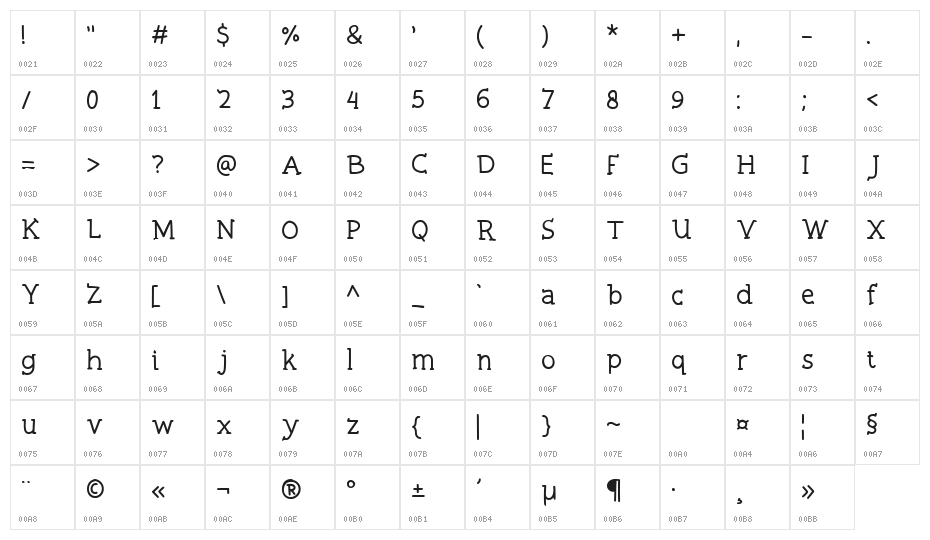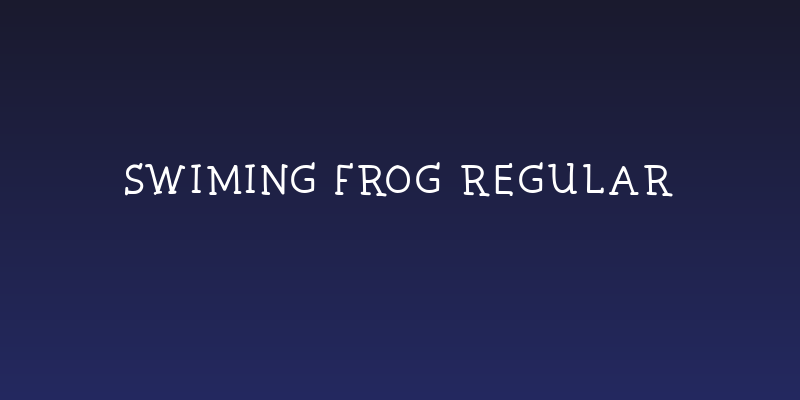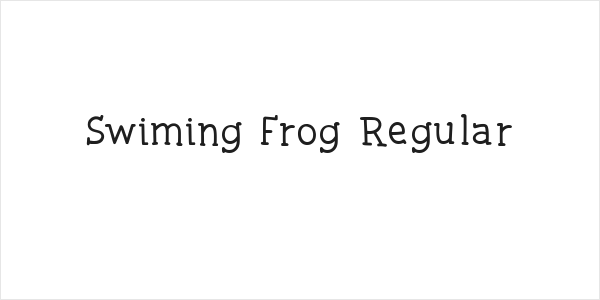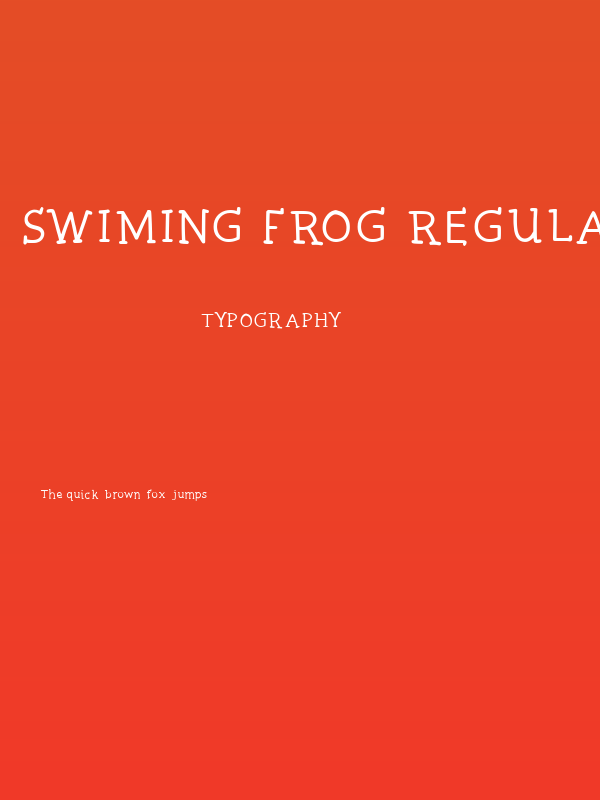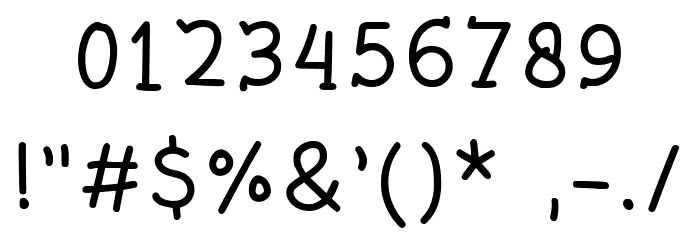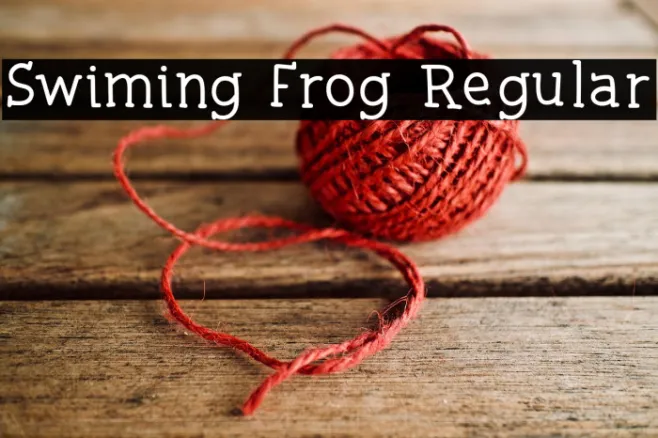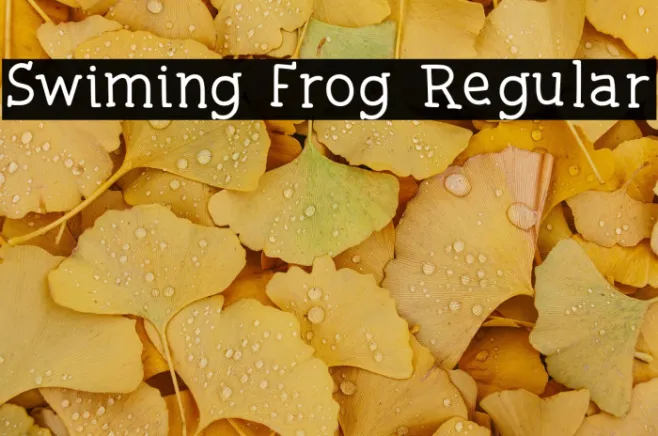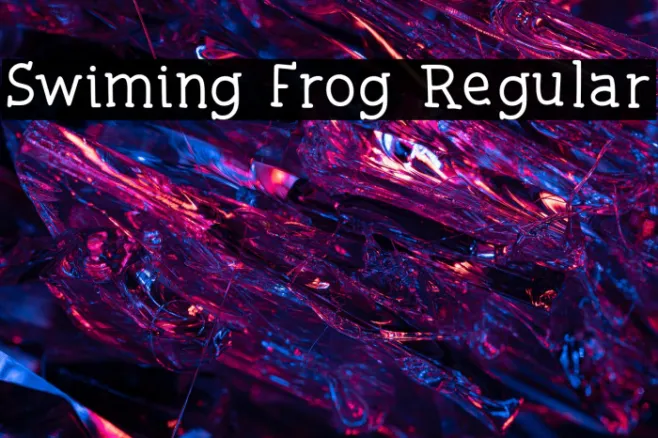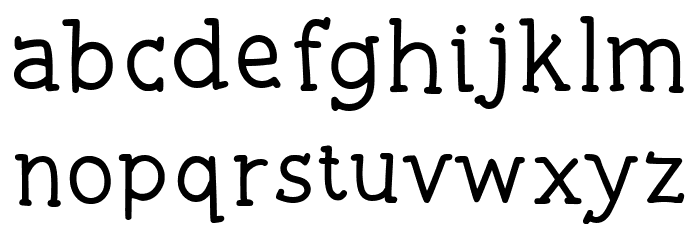
Swiming Frog Regular Font
Swiming Frog Regular Description
This font features a playful and whimsical design, characterized by its rounded and slightly irregular letterforms. The strokes are consistent in width, giving it a uniform appearance, while the subtle curves and bends add a touch of personality. The overall look is casual and friendly, making it suitable for projects that require a light-hearted and approachable feel. The characters are well-spaced, ensuring readability, and the font includes a full set of uppercase and lowercase letters, numbers, and a variety of punctuation marks.
| Proposed Projects | Ideal for children's books, playful branding, casual invitations, and creative posters. |